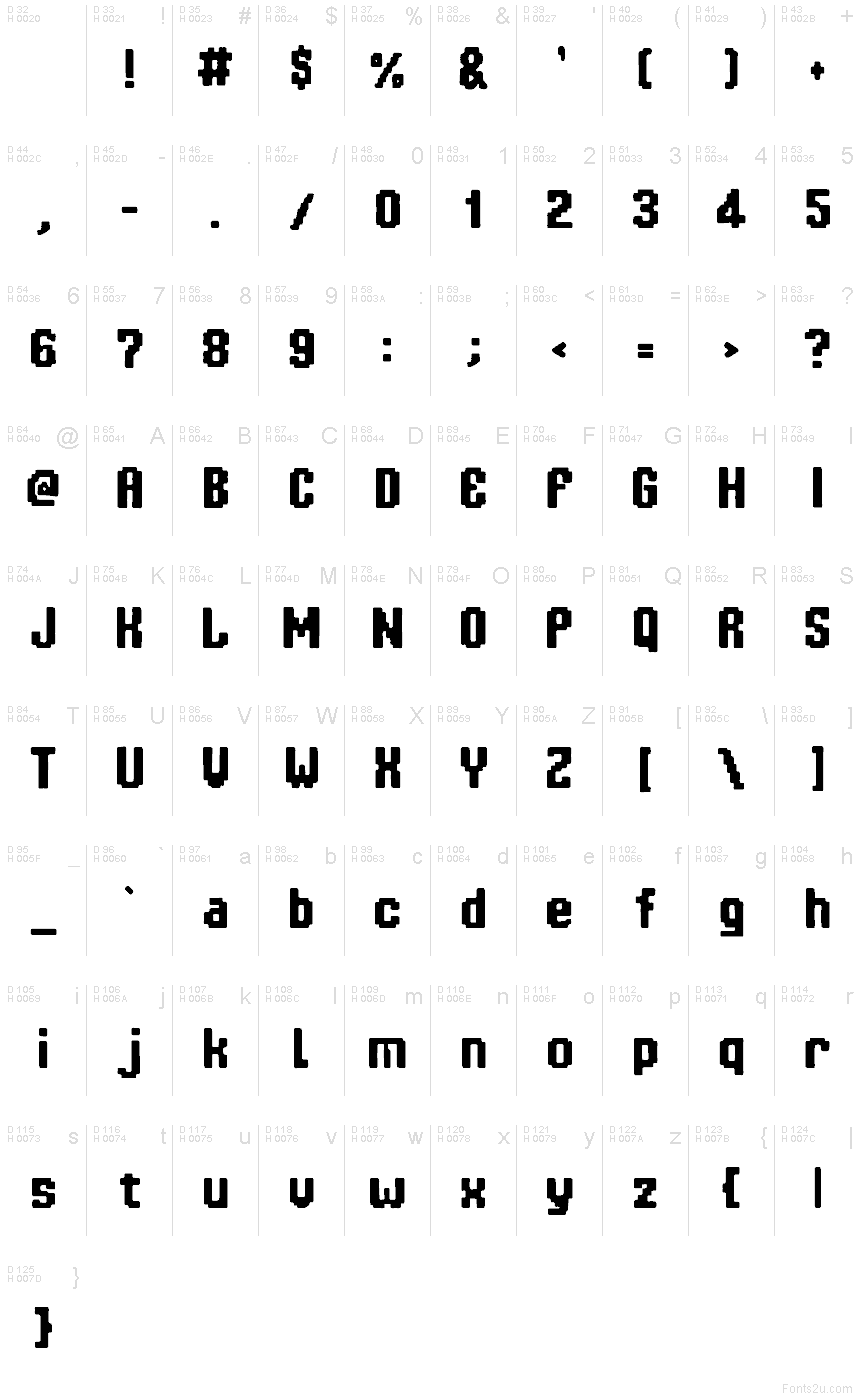
Arcade Raiders
Arcade Raiders font by BlackFridayFont FMF is a free digital display typeface that hits like a quarter-drop into a cabinet. Its chunky, grid-built letters and stepped corners feel tactile and gamey—like glowing pixels snapped into place—while the tight rhythm keeps words compact and punchy. The forms read instantly at a glance, even when stacked or staggered across busy artwork.
Using Arcade Raiders, titles lock up with that unmistakable arcade buzz. It shines on retro game logos, streaming overlays, esports posters, pixel-art titles, event badges, and merch. This free font rewards big sizes; add a touch of tracking for subheads to open the texture. For body copy, pair it with a clean geometric sans to keep the nostalgia crisp and readable.